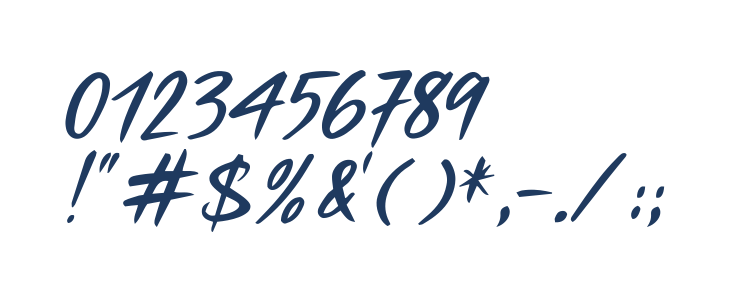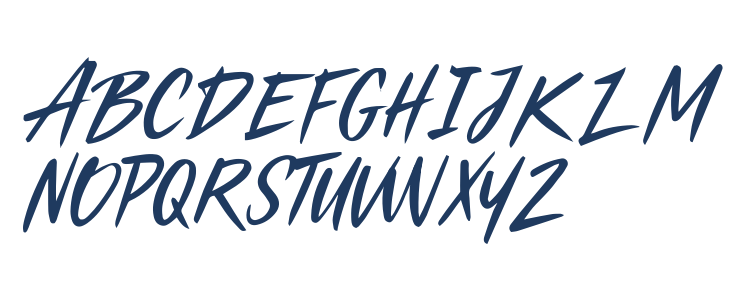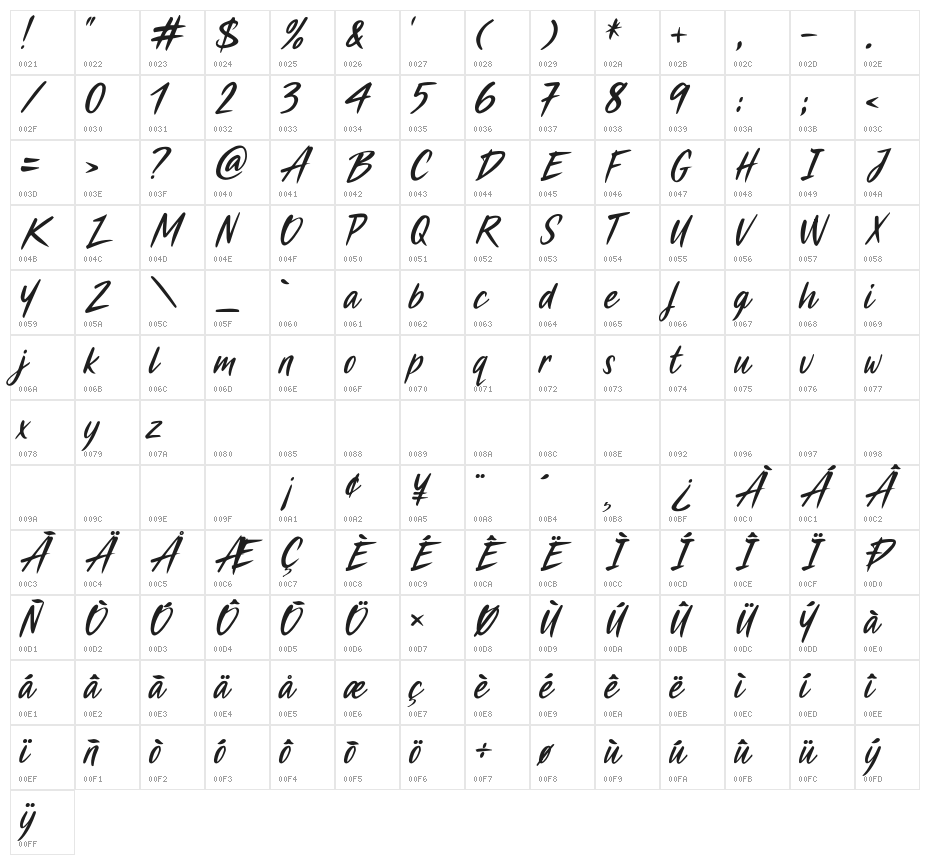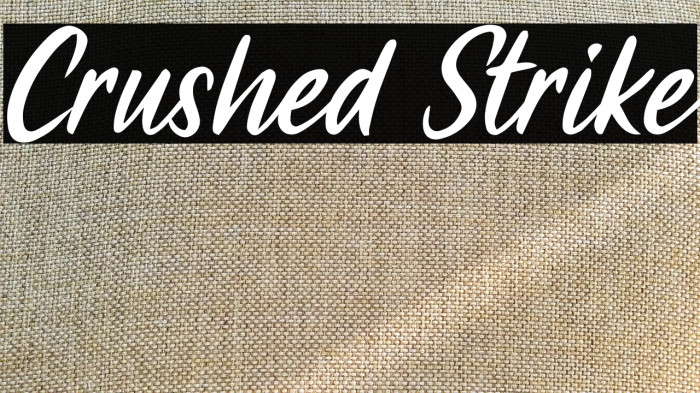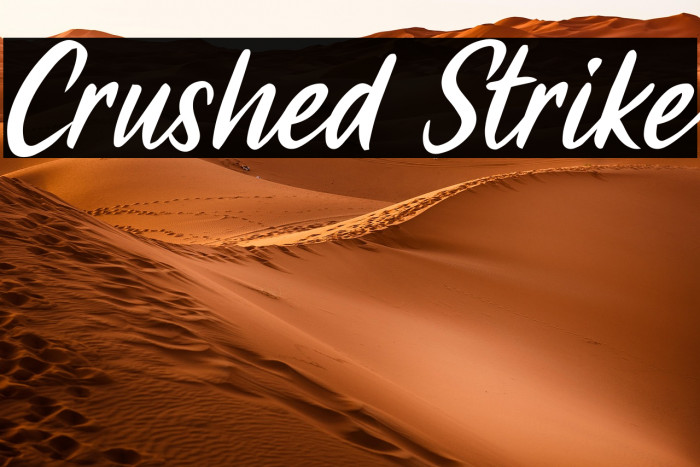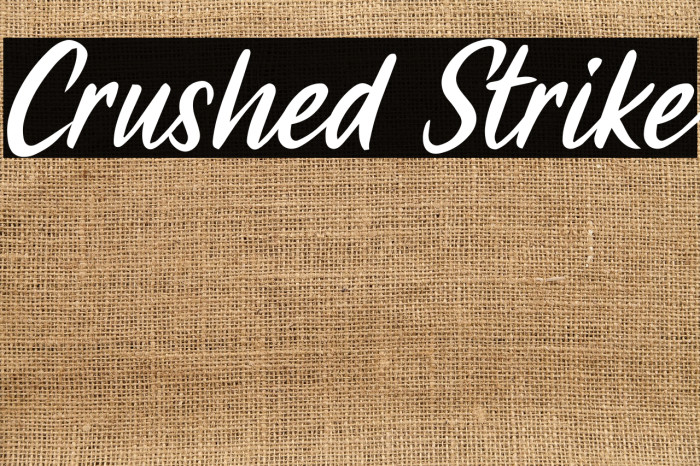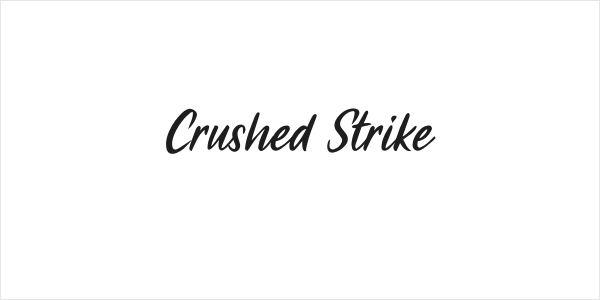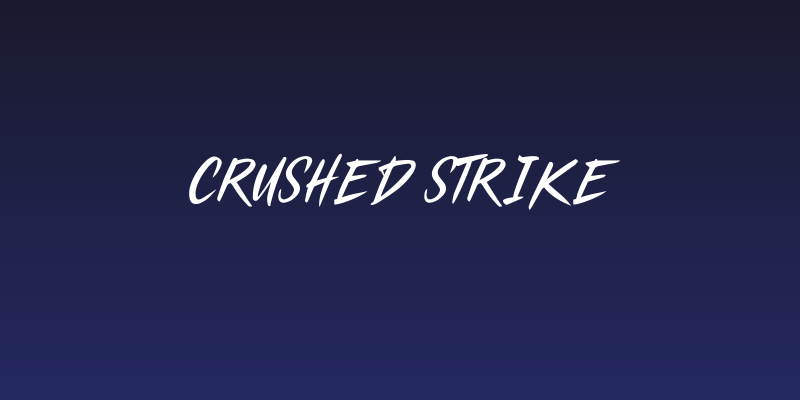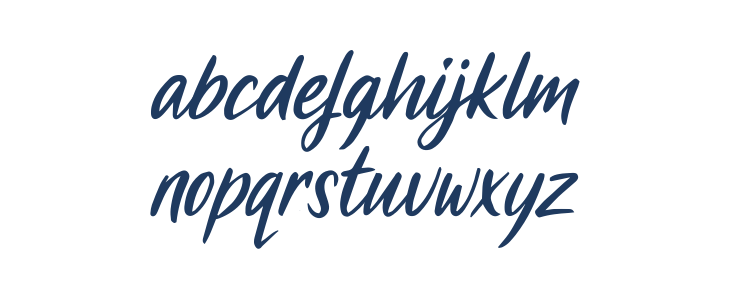
Crushed Strike Font
Crushed Strike Description
A bold, handwritten script font with a dynamic, slanted style and energetic brush-like strokes. The characters are slightly condensed with tight spacing, and the overall appearance is expressive and informal.
| Overall Style | Decorative, Expressive, Modern |
| Use Case | Headlines, Logos, Posters, Informal branding |
| Proposed Projects | Posters, branding, social media graphics, event invitations, expressive headlines. |